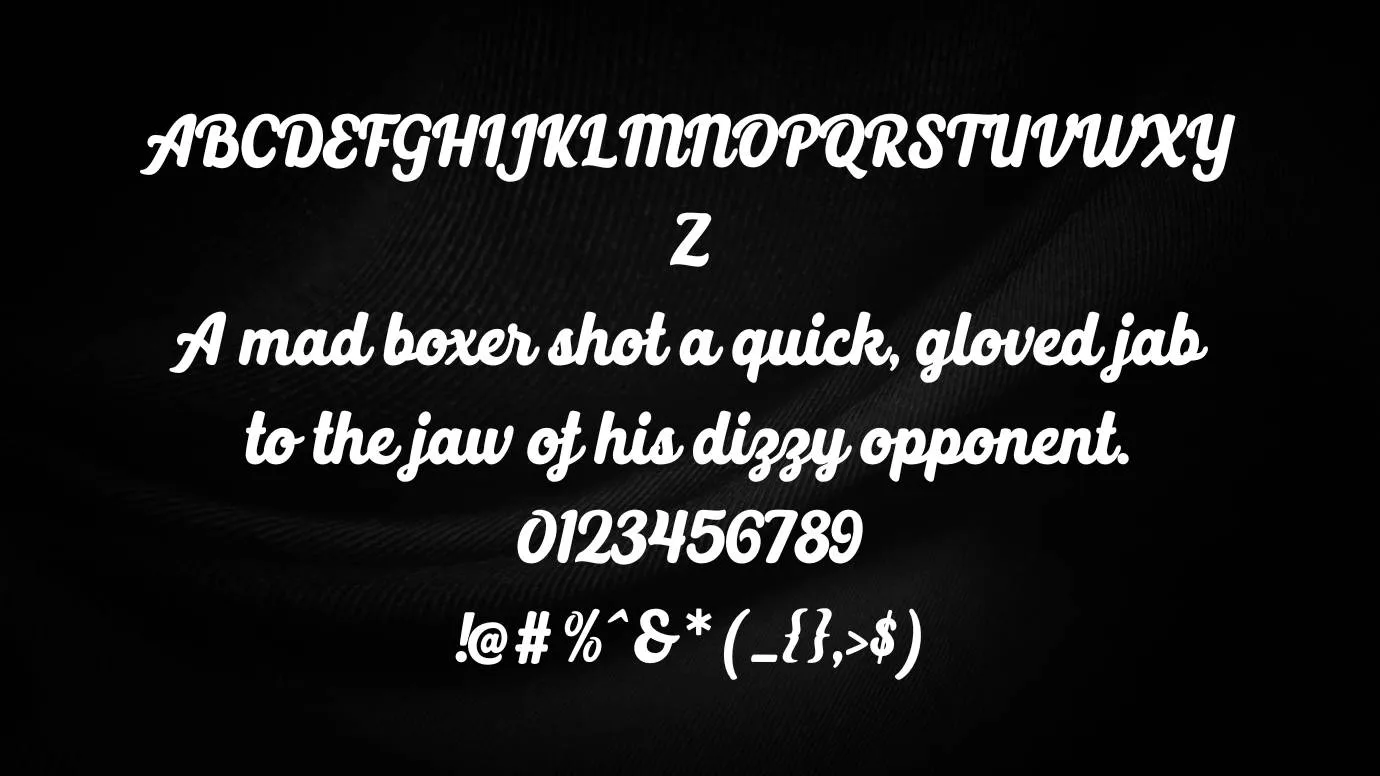
Selphia Font is a basic script typeface that has an amazing look. This font has bold and stylish swashes with stylistic alternates. Get Studio is the publisher of the Selphia script typeface.
Selphia Font